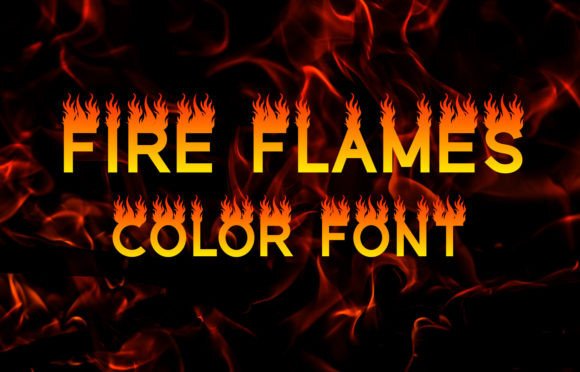
Feast your eyes on the vibrant Fire Flames Font—a stunning addition to our colorful font family. This extraordinary font, meticulously crafted by the skilled hands of Cool Worker, promises to set your creative projects ablaze with its eye-catching design.
Unleash your imagination and immerse yourself in a sea of colors as the Fire Flames Font dances across your screen. This font is not just a font; it's an artistic expression that breathes life into your words, leaving an unforgettable impact on your audience.
Picture this: The Fire Flames Font gracing your invitations, leaving guests in awe of its captivating aura. Its fiery hues ignite curiosity and anticipation, making your event the talk of the town.
Step into the world of flyers and posters adorned with the Fire Flames Font. Its bold and playful nature commands attention, drawing eyes like a magnet. Let your message shine brighter than the sun, captivating passersby and leaving them eager to learn more.
But the Fire Flames Font doesn't stop there. Its versatility extends far beyond invitations and flyers. It's the perfect choice for logos, branding, social media posts, and any creative endeavor that demands a touch of brilliance.
With the Fire Flames Font, you'll unlock a world of possibilities. Its fiery charm will add an unforgettable flair to your designs, leaving a lasting impression on all who encounter it.
So, why settle for ordinary when you can embrace the extraordinary? Dive into the world of Fire Flames Font today and let your creativity soar to new heights.